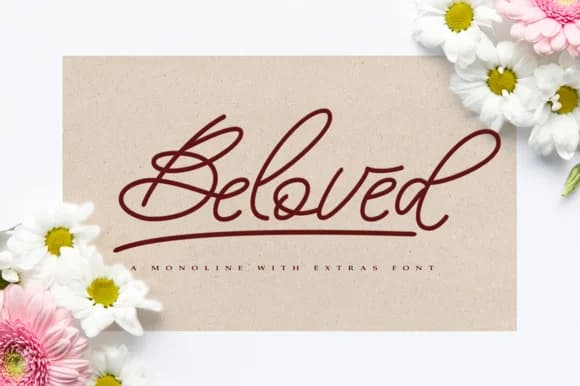
Beloved Script Font by alandya typefoundry is a flowing hand-lettered script that bridges contemporary design with genuine readability. The font's clean, approachable letterforms perform beautifully across both large display applications and smaller body text, making it a versatile choice for designers working across different scales. Featuring Beloved Extras with alternate character options, this typeface adds meaningful customization to any creative project that calls for a human, handcrafted touch without sacrificing polish or professionalism. From wedding invitation suites and personalized stationery designs to premium greeting card collections, Beloved Script brings elegance and legibility together in a way that discerning clients expect. Its smooth, flowing letterforms work equally well for boutique branding packages, event menu cards, and luxury packaging projects where a personal connection matters. DIY craft enthusiasts, small business owners, and indie creators will find this typeface particularly effective for beauty product packaging, social media graphics, and personalized labels that demand character and visual interest while maintaining clarity. The accessible personality of Beloved Script makes it a reliable choice across industries, from lifestyle blogs and handmade retail businesses to custom gift creation and personalized merchandise. Discover Beloved Script Font on Creative Fabrica and add this refined hand-lettered script to your professional design collection.
- Elegant, Flowing, Beloved
Beloved Script Font is a script font that shines as a display or heading face. Pair it with a clean sans-serif or serif font for body text β the contrast creates a clear hierarchy while the two styles stay balanced and easy to read.